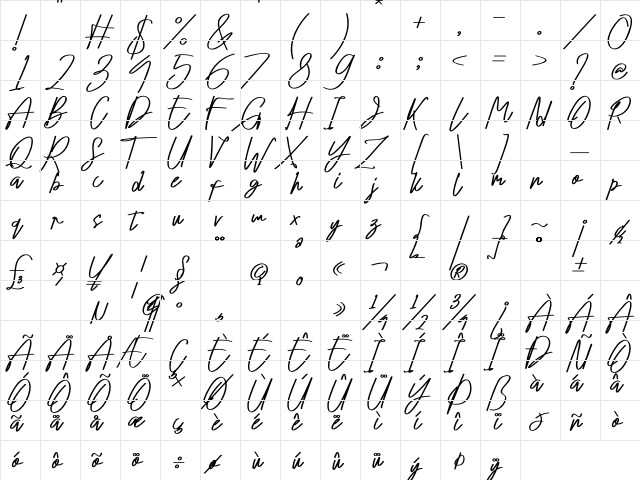
Oyange Regular
Design Context for Oyange Typeface
Oyange is a composed and adaptable typeface that performs quietly and consistently across a wide range of design contexts.
Pro Tip: Pair Oyange with a font of contrasting weight or personality to build a more expressive typographic hierarchy.